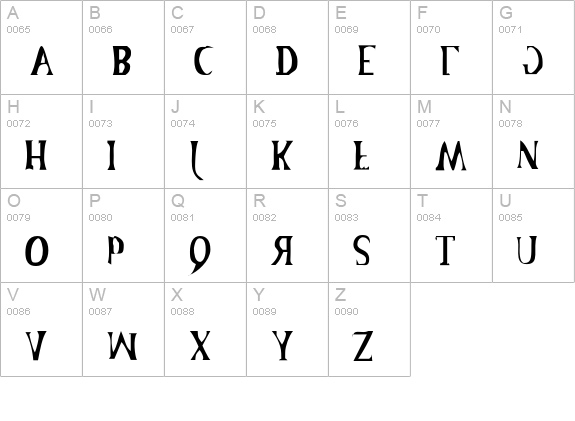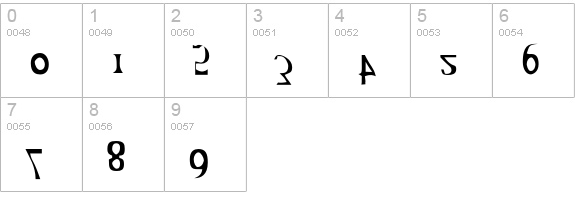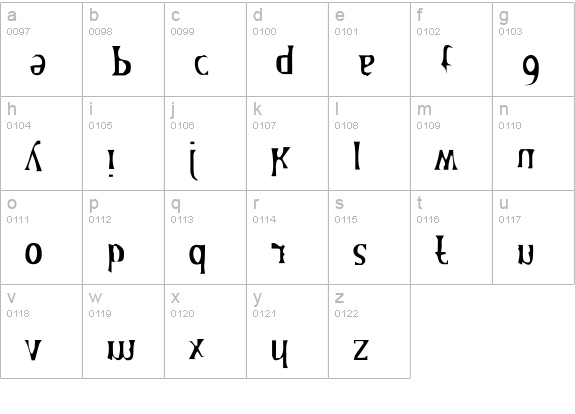
HateNoteIncensed Font Details
Introducing HateNoteIncensed font, a striking display typeface that exudes an aura of intensity and power. With its uniquely designed characters, HateNoteIncensed commands attention and leaves a lasting impression. This font is perfect for projects that require a bold statement, be it in advertising, branding, or any creative endeavor that calls for a touch of rebellion. The sharp edges and distinctive shapes of HateNoteIncensed create a sense of edginess and defiance, making it an ideal choice for those who want to make a strong impact. Not only does HateNoteIncensed possess an unrivaled visual appeal, but it also offers the convenience of being freely available to download at FontsMarket.com. This means that you can easily access this incredible font without any cost, allowing you to unleash your creativity without any limitations. Whether you're a professional designer or a passionate individual seeking to elevate your projects, HateNoteIncensed font will undoubtedly become an invaluable asset in your font collection. Embrace the power and allure of HateNoteIncensed, and watch as your designs come to life with a captivating and rebellious spirit. Download it for free at FontsMarket.com and unlock the potential of this remarkable font today.